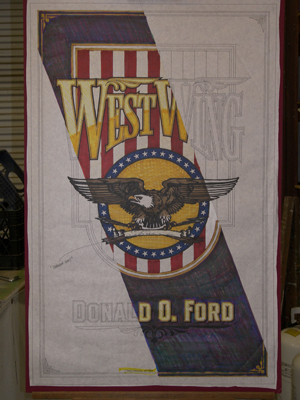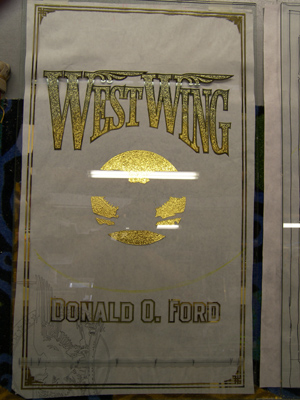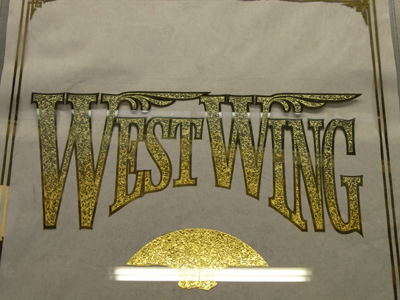
Few days ago, a private contract came thru, asking for special individual glass pieces for doors inside a private residence.
Since I have had good fortune and a busy year, I produced a colored rendering to size, on paper mounted on showcard stock, for the client to give to her husband for his birthday.
Three different panels of glass were ordered, approx 43in x 24in.
Production of the glass can now proceed at my pace, and there's no reason to hurry.
I decided to take it easy, and not turn this into work.
So, I packed up my wagon, and headed out to Machine, where a fella can unwind and rest a spell,
along with my friend, one Mr. William Blake.
Once they ordered 3 pieces of glass, it's easy to make it six.
Always like to be safe and have an extra on hand.
After discussing the beauty of different embellishments,
Bill and I proceeded to cut the mask. While he set up his blastin gear,
I weeded, taped and applied the masks. 4 glasses, one booth. Just like the good ol days.
I know this ain't California we're sellin...
perhaps a little explanation is in order...the four pieces (two actually) here are for a 'spa' and 'gym' in the residence.
They'd like light coming thru, yet still want privacy.
So, the combination of sandblast etching and glue chipped, sounded pretty good.
After the first etching, the four pieces were coated with asphaltum, and when dry, applied the second mask for blasting.
took us a break while letting the asphaltum dry, so we can enjoy a nie bbq'd boneless rib eye.
after pulling the masks, time to flow the glue.
while the glue setup, we acid etched the areas on the two 'west wing' pieces.
Broke for a nice sushi dinner, and then i hitched up my wagon back with 'west wing' pieces in my care.
Meanwhile, Mr. Blake oversaw the chipping, after which, he cleaned and chipped a second time.
Salvatore Jenko.
Back in Santa Ana,
I gilded one of the 'west wing' panels, 23k,
with a 18k and 23k blend in the main text.
Backed it up...
and received a telegram, sayin my chipped glass is ready for cleanin and temperin.
After a days hard ride, back at Machine we cleaned the glass thoroughly,
in preparation for tempering.
Mr Blake, Mr Jenko....
we have that glass cleaned, and we are ready to wedge more fish.
might we suggest the Satomi Signature Set? Its a very fair deal,mind you...
Four of us, with our own set....and it was good.
Now I know why you guys allways talk about that sushi, it looks great! Yummi!!!
The sushi they sell here in Nederland are maybe three times smaller than what I see here on the photo.
Maybe that is why the say: "Going Dutch" :wink: :D
May I ask how the asphaltum was applied, because I seem to have some trouble with putting a nice even layer without any wholes showing through. The work already looks very good. Looking forward to see the next steps.
Still in the learning phase ;-)
wink... you surely may.
asphaltum applied with foam roller... ain't easy, son, but it could be done.
why do they serve sushi so large? because, this is america.
Aho.
Re: Blake 'n Jenko Decorative Glass
Cripe, looks like some good grub. You got the nice set-up there Blake. You guys are having too much fun dad gum it.
I gotta gild in solitary confinement, almost.
Image Aho!
Re: Blake 'n Jenko Decorative Glass
easy, easy, the first think a gilder of glass needs to learn is to take things easy.
These are finished and ready to be installed tomorrow.
At that time, I will take 'in place' pictures and post.
Aho.
3pcFord700.jpg
3pcFord700.jpg (72.51 KiB) Viewed 21622 times
Re: Blake 'n Jenko Decorative Glass
I'll be danged! ....... You're still workin' on that?
I coulda finished 8 of 'em!
Oh ya, almost forgot, the Jenco motto....."There's no reason to hurry."
Nice gildin'....very nice gildin'!
Hey, good luck with that installation.
Very nice! Your client should be very happy with those.
Beautiful work! What a great birthday gift.
The installed version, finished glass in place in client's home,
can be seen in the ODM post.
Aho.